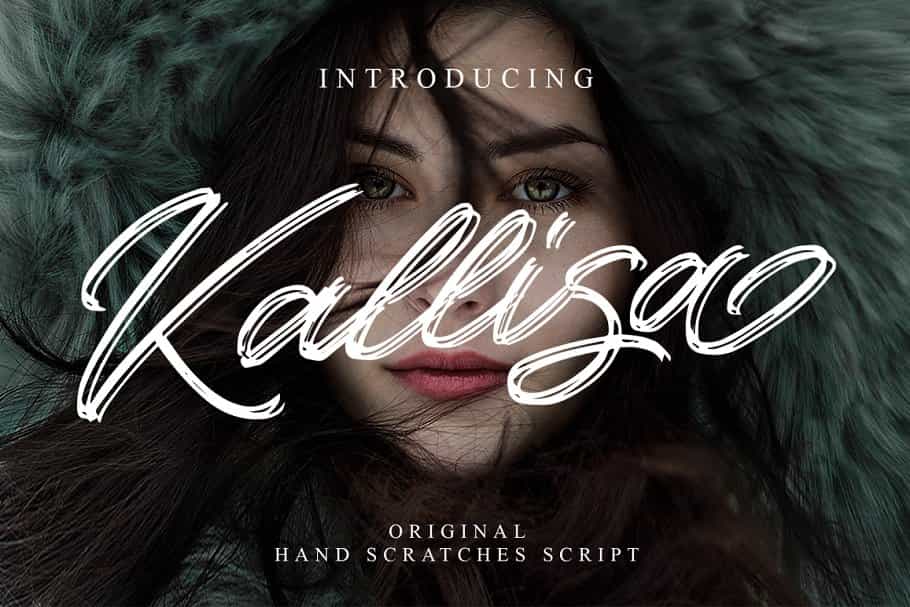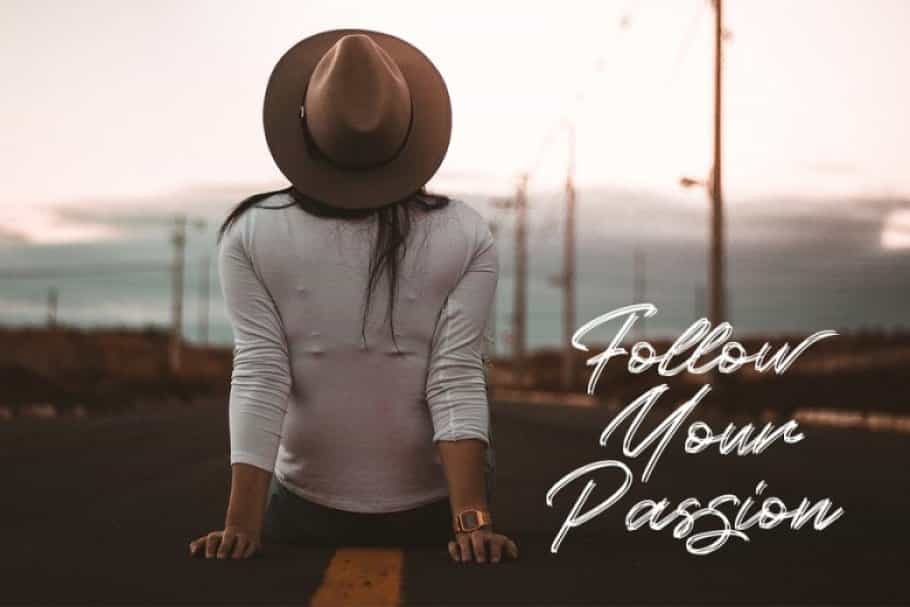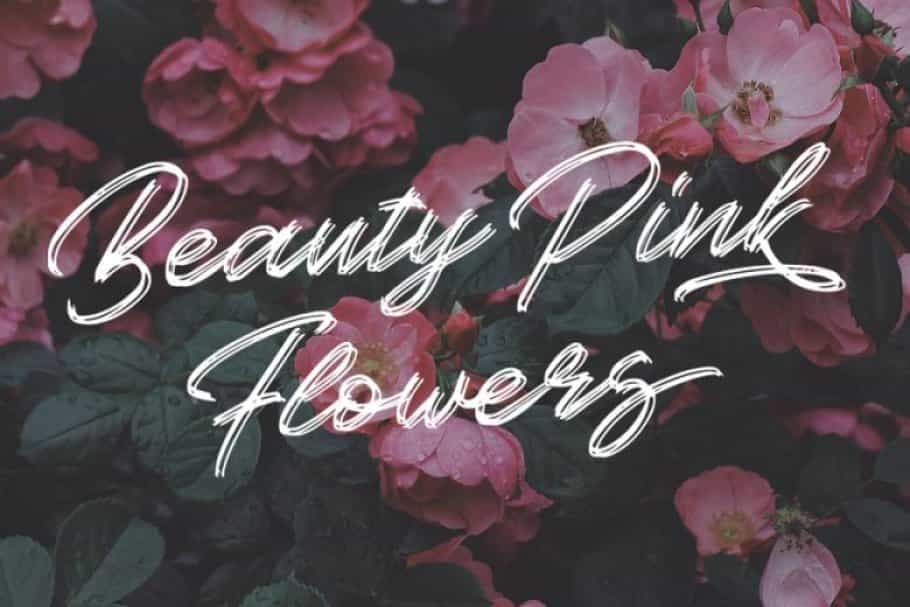
Discover Kallisa Script Font, part of the Brush collection—a versatile and unique font perfect for adding a personal touch to your projects. Download it for free and enjoy crafting designs with style, from invitations to social media posts. This font is available exclusively for personal use, giving you the freedom to create without limits. Unlock your creativity with Kallisa Script Font today!
Introducing Kallisa Font. It is a creation of the Blankids Studio. Raidemith is a very new kind of brush font, it was written in fast motion using zebra pens and has real handwriting nuances as well as unique handmade styles. This font will perfect for many different project ex: Quotes, logo, blog header, the poster is just a few of what can be done with lettering and invites.